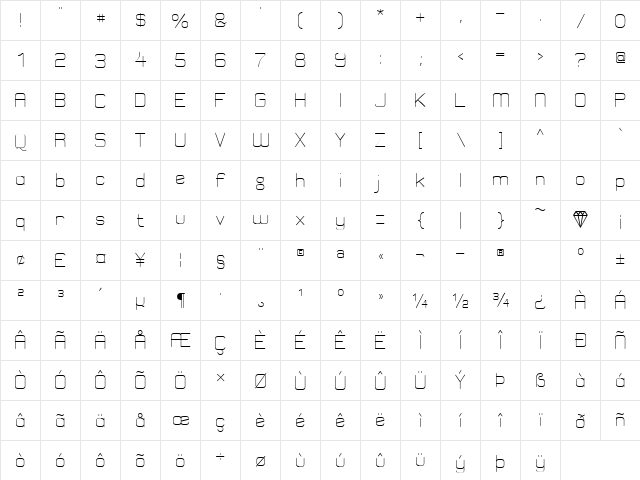
Elgethy Est Regular
Design Context for Elgethy Est Typeface
Elgethy Est offers clean, dependable letterforms without strong stylistic allegiance, making it a practical choice for designers who need flexibility.